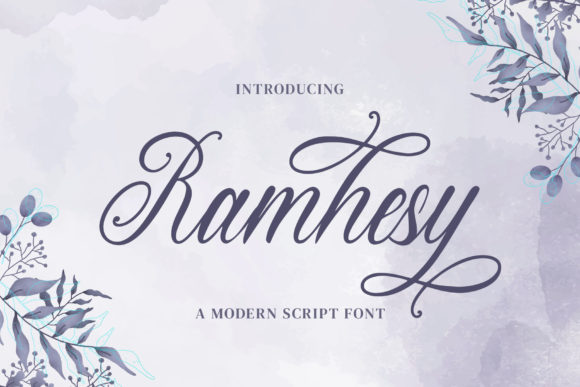
Ramhesy Script: Elevating Your Design Projects with Delicate Handwritten Charm
When you are working on a project that requires a personal touch, the typeface you choose speaks volumes before a single word is read. There is a distinct difference between a standard digital font and one that captures the organic flow of human handwriting. Ramhesy Script falls firmly into the latter category. It is a beautiful and delicate handwritten font that brings a unique feel and a stunning impact to any visual composition. If you have been searching for a way to add a luxury spark to your designs without sacrificing warmth, this typeface might be the missing element you have been looking for.
Unlike the rigid geometry of a sans serif font or the structured tradition of a serif font, a script font like Ramhesy Script introduces movement and rhythm. It mimics the fluidity of a brush or pen, offering a modern typography solution that feels authentic. It is not just about looking pretty; it is about communicating a specific mood. The visual characteristics of this font—its delicate swashes, consistent baseline, and balanced spacing—create a personality that is both sophisticated and approachable. It suggests craftsmanship and care, making it a powerful design asset for creators who want to connect with their audience on an emotional level.
The Visual Power of a Handwritten Font
Understanding the visual style of Ramhesy Script is key to using it effectively. This typeface is categorized as a premium font because of the attention to detail in its letterforms. You will notice that the connections between letters are smooth, ensuring that words remain legible even at a glance. This is a common pitfall with many script fonts; they become tangled or difficult to read in smaller sizes. Ramhesy Script, however, maintains a delicate structure that holds up well across various applications.
The overall appeal lies in its versatility. It is a creative font that avoids being overly whimsical or childish. Instead, it strikes a balance that works for high-end branding and casual communication alike. The stroke width varies naturally, mimicking the pressure applied by a human hand. This subtle variation adds depth to the text, preventing it from looking flat or sterile. When used in logo design, for example, these details create a mark that feels bespoke and expensive. It transforms a simple name into a visual signature.
Strategic Applications: From Branding to Publishing
Knowing where to deploy a handwritten font is just as important as choosing the right one. Ramhesy Script is incredibly versatile, but it shines brightest in specific contexts where elegance and personality are required. It is a commercial font designed to perform in professional environments, bridging the gap between digital convenience and artisanal aesthetics.
Logo Design and Brand Identity
For entrepreneurs and small business owners, your brand identity is your first impression. Ramhesy Script is an excellent choice for creating a distinct voice. It works exceptionally well for businesses in the lifestyle, beauty, fashion, and wedding industries. Imagine a wedding planner’s logo or a boutique bakery’s header; the font instantly communicates elegance and attention to detail. It helps build brand recognition because the style is memorable. However, it is vital to ensure that the font aligns with your brand's core values. If your brand is about rugged durability, a delicate script might send the wrong message. But if your brand promises luxury, care, and personal service, this font is a perfect fit.
Packaging and Product Design
In the world of packaging design, shelf appeal is everything. Consumers make split-second decisions based on visual cues. Using Ramhesy Script on product labels can elevate a standard item to a premium product. It works beautifully for product names, taglines, or "hand-crafted" badges. For instance, on a candle label or a skincare bottle, the font suggests that the product inside was made with love. It adds a tactile quality to the visual experience, making the customer feel like they are holding something special.
Digital Presence: Web Design and Social Media
The digital landscape is often dominated by clean, geometric sans serif fonts. While these are excellent for body text, they can lack personality. Ramhesy Script serves as a fantastic accent font in web design. Use it for hero section headlines, pull quotes, or call-to-action buttons to draw the user's eye. On social media, where attention spans are short, a stunning display font can stop the scroll. It is perfect for Instagram posts, Pinterest graphics, and story templates. When creating content, mixing this script with a clean sans serif for the body text creates a professional visual hierarchy that is easy to read and aesthetically pleasing.
Editorial and Print Design
Publishers and content creators can utilize Ramhesy Script to break the monotony of long-form text. In editorial design, such as magazines or blogs, it works well for pull quotes, section headers, or introductory text. It adds a human element to the publication, making the content feel more like a conversation than a lecture. For personal projects like greeting cards, invitations, or scrapbooking, it offers a polished look that is far superior to standard system fonts.
Mastering the Pairing and Hierarchy
A common question designers face is how to pair fonts. Ramhesy Script is a display font, meaning it is designed for impact rather than long paragraphs. If you use it for everything, the design will become cluttered and unreadable. The secret to modern typography is contrast and balance.
To create a strong visual hierarchy, pair Ramhesy Script with a neutral companion. A geometric sans serif font often works best. The clean lines of the sans serif provide a resting place for the eyes, allowing the script font to stand out as a focal point. For example, you might use Ramhesy Script for the main headline to inject emotion, and then use a font like Montserrat or Open Sans for the subheaders and body copy. This combination ensures professionalism while maintaining a creative edge.
Practical Considerations for Designers
Before integrating any new typeface into your workflow, there are practical steps you should take to ensure it fits your project requirements. Treat font selection as a strategic decision rather than a purely aesthetic one.
- Evaluate Readability: Test the font at the size you intend to use it. Ramhesy Script is legible, but all script fonts require careful testing on mobile devices and small print formats. Ensure the "x-height" and spacing work for your specific medium.
- Check Included Styles: High-quality fonts often come with alternates, ligatures, or stylistic sets. Explore the full character map of Ramhesy Script. You might find alternative swashes or endings that add even more uniqueness to your typography.
- Understand Licensing: If you are using this for a client or selling products, you must verify the commercial license. A premium font usually comes with clear licensing terms for desktop, web, and app usage. Always adhere to these terms to protect your business and support the type designer.
- Contextual Testing: Mock up the font in your actual design environment before finalizing. Seeing the text in context—whether on a website header or a physical business card—helps you gauge its true impact.
Adding a Luxury Spark to Your Workflow
Ultimately, the tools we use shape the work we produce. Adding Ramhesy Script to your library of design assets gives you a reliable way to introduce elegance and personality into your projects. It is more than just a collection of letters; it is a tool for storytelling. Whether you are a blogger looking to beautify your headers, a marketer crafting a compelling campaign, or a designer building a new brand identity, this font offers a blend of beauty and function.
It bridges the gap between the digital and the organic. By using it thoughtfully—respecting its style and pairing it wisely—you can achieve results that feel professional, luxurious, and deeply human. When you add it confidently to your projects, you will find that it elevates the entire composition, turning ordinary text into art. Ramhesy Script is a reminder that in a digital world, the human touch is still the most powerful design element of all.